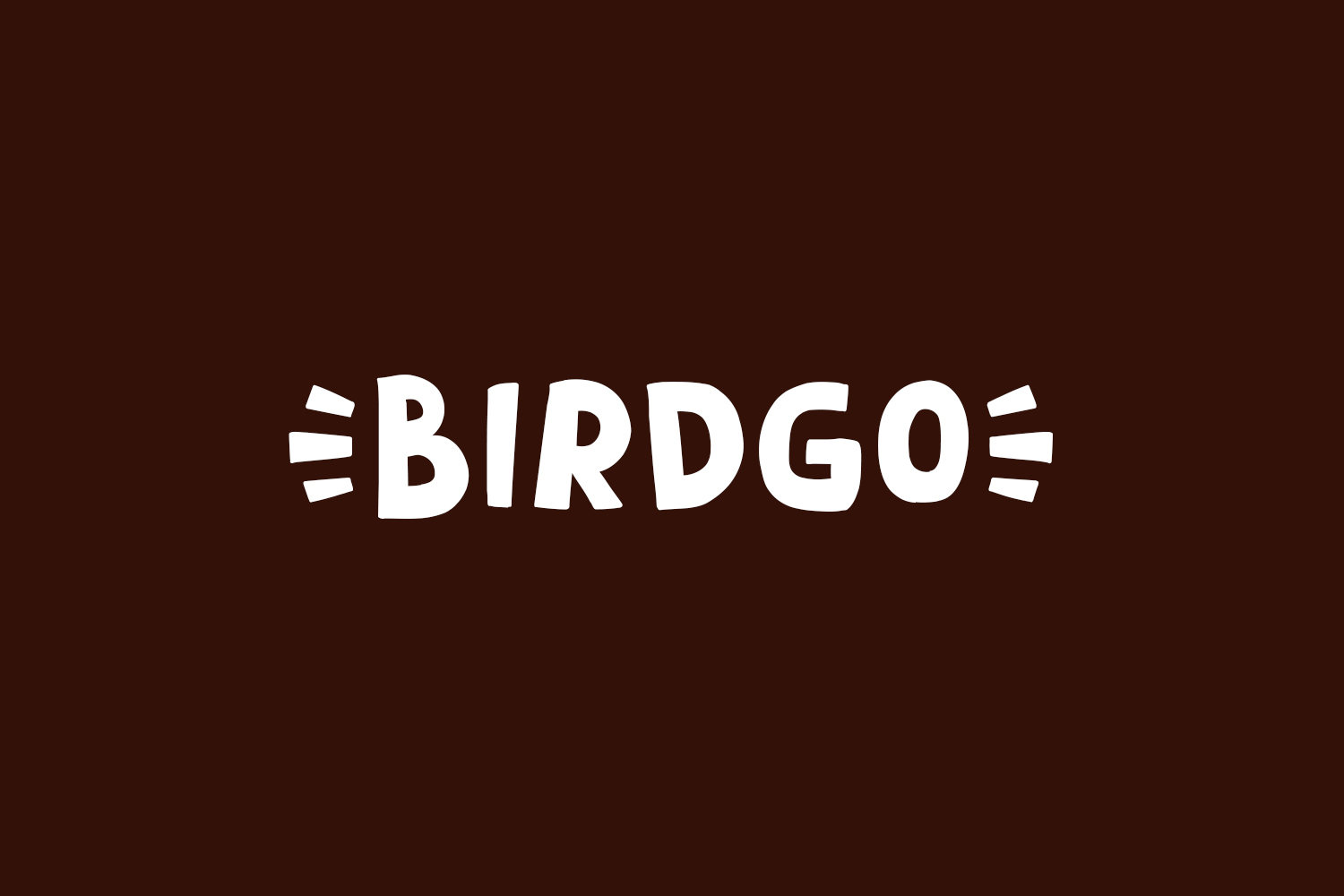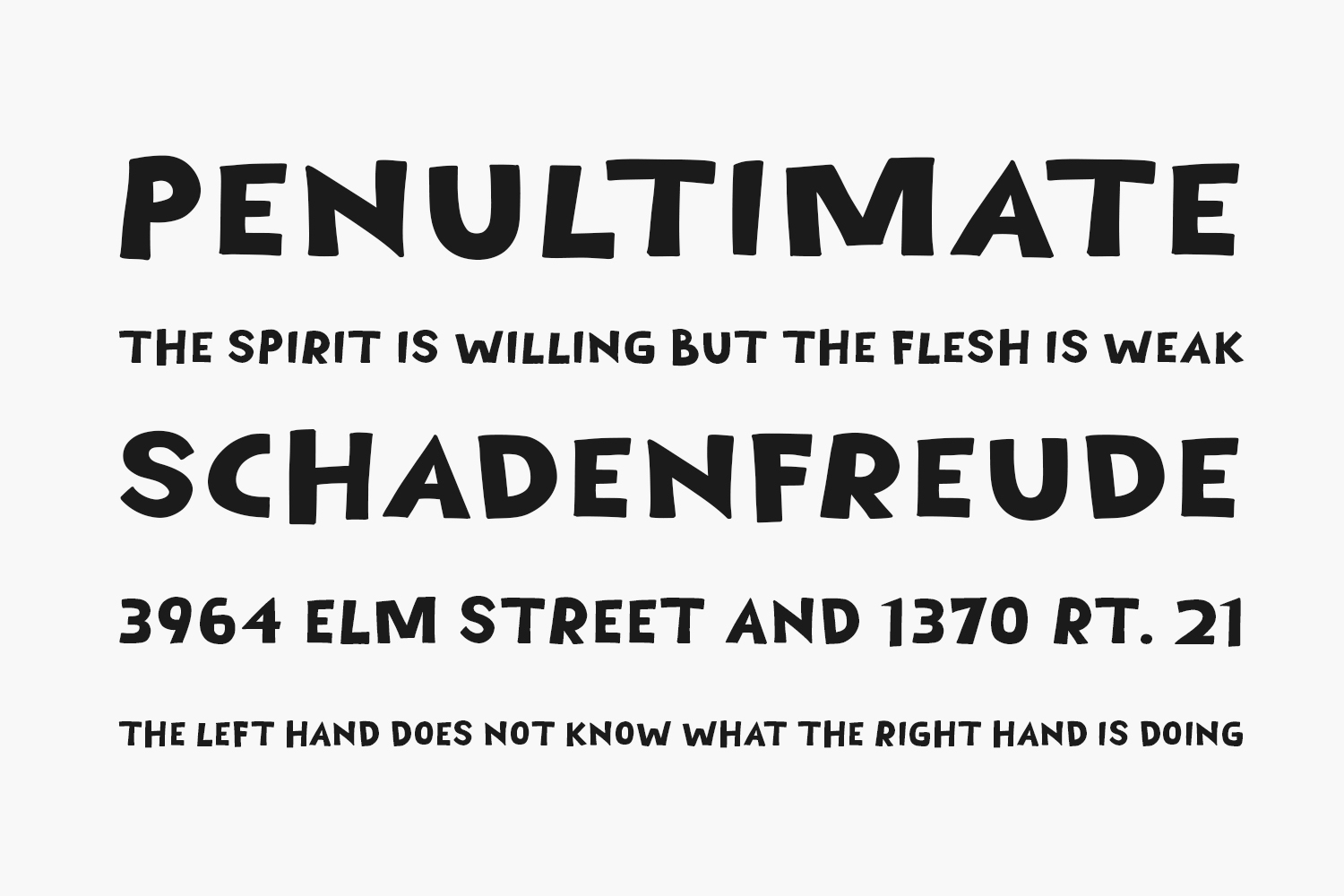
Discover the contemporary allure of Birdgo Free Font, a stylish and decorative display font crafted for posters, logos, magazines, book covers, banners, and beyond! Elevate your designs with this exceptional font, seamlessly adaptable to a diverse range of projects. Enhance your creative ideas and witness the distinctive impact Birdgo brings to make your designs truly stand out. Download the font for free if you need it for personal or commercial use.